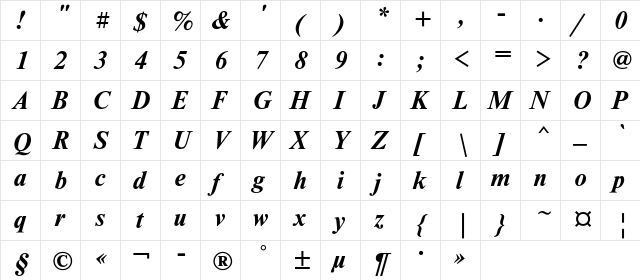
NewtonC Bold Italic
Design Context for NewtonC Typeface
NewtonC is a composed and adaptable typeface that performs quietly and consistently across a wide range of design contexts. Its italic angle brings a sense of urgency and motion to the letterforms. The heavy weight commands attention and anchors typographic hierarchies.
Pro Tip: Try NewtonC for annotation and caption copy alongside an upright companion — the contrast in angle creates a dynamic but ordered typographic system.